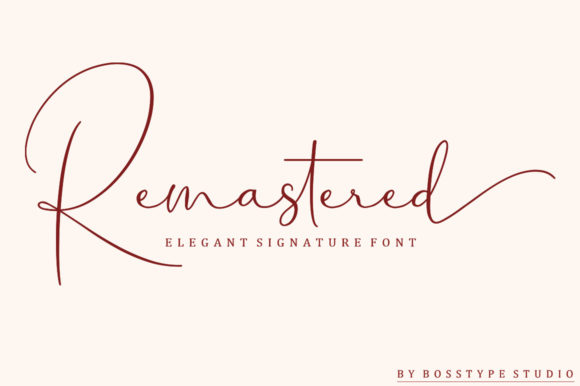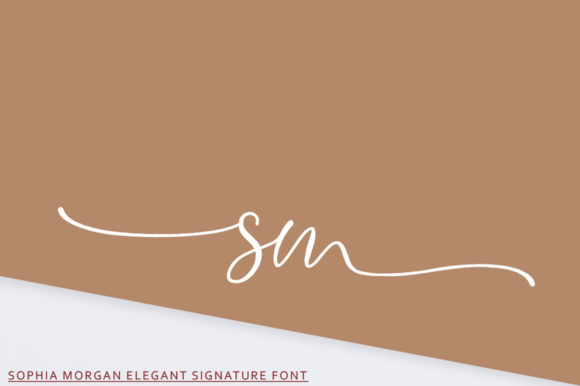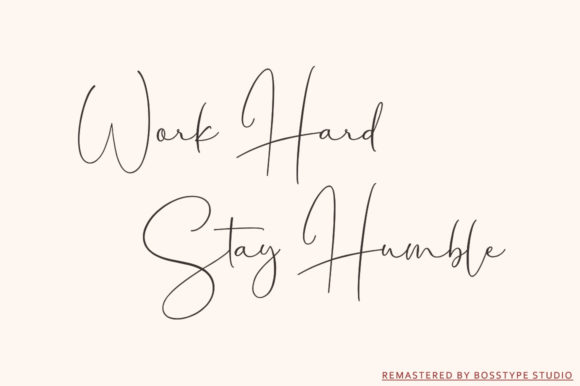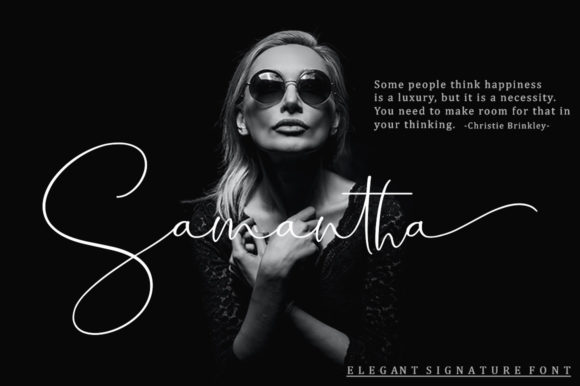
About Remastered Font
Remastered is a beautiful handwritten font, expertly designed to become a true favorite. It retains a classy calligraphic influence while feeling contemporary and fresh. Remastered is PUA encoded which means you can access all glyphs and swashes with ease!